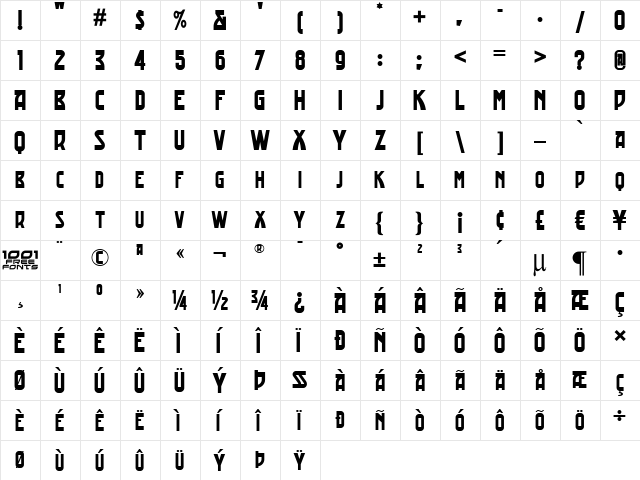
Trading Post NF Regular
| Foundry | Nick's Fonts |
| Designer | Nick Curtis |
Design Context for Trading Post NF Typeface
Trading Post NF offers clean, dependable letterforms without strong stylistic allegiance, making it a practical choice for designers who need flexibility.